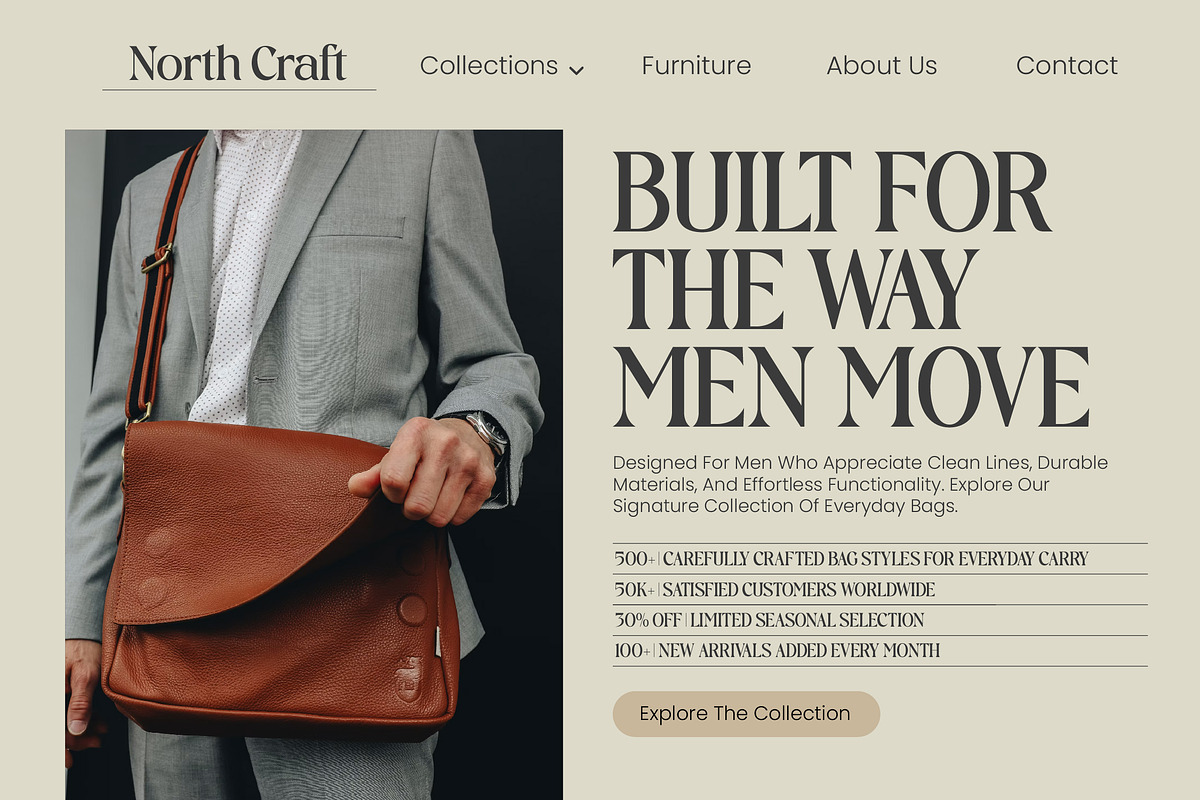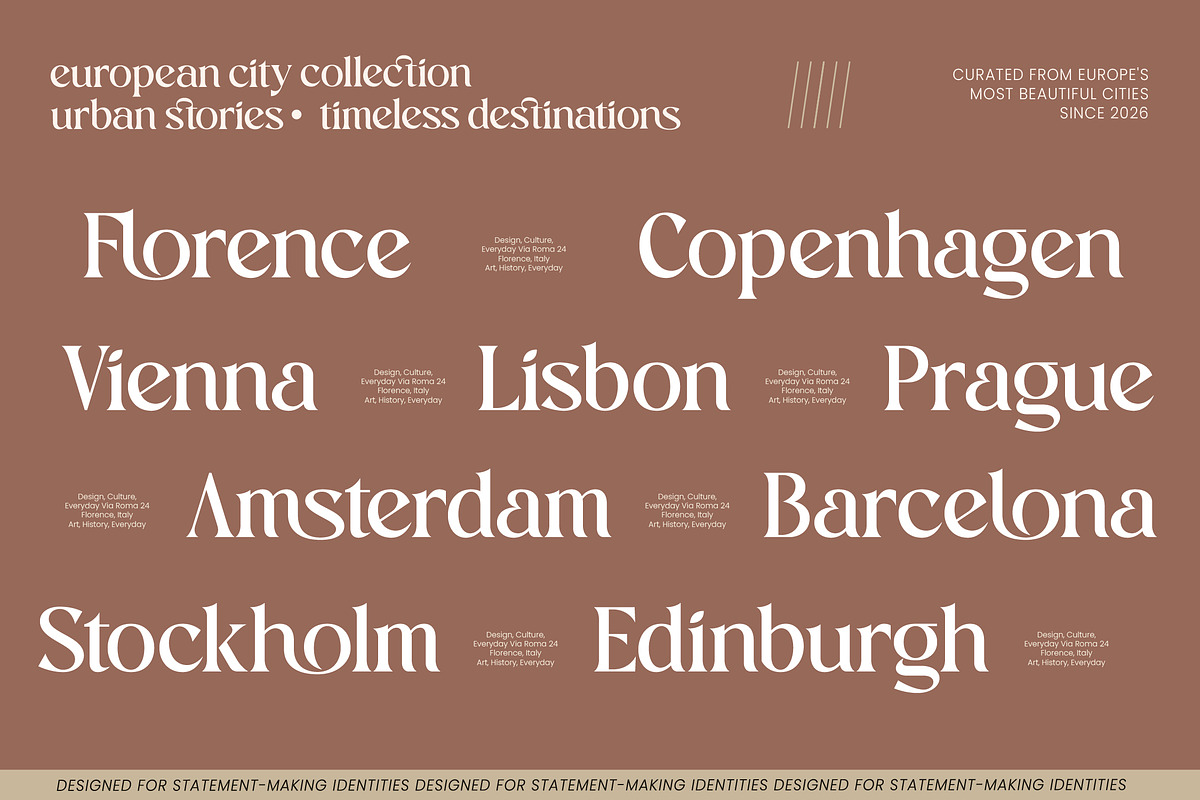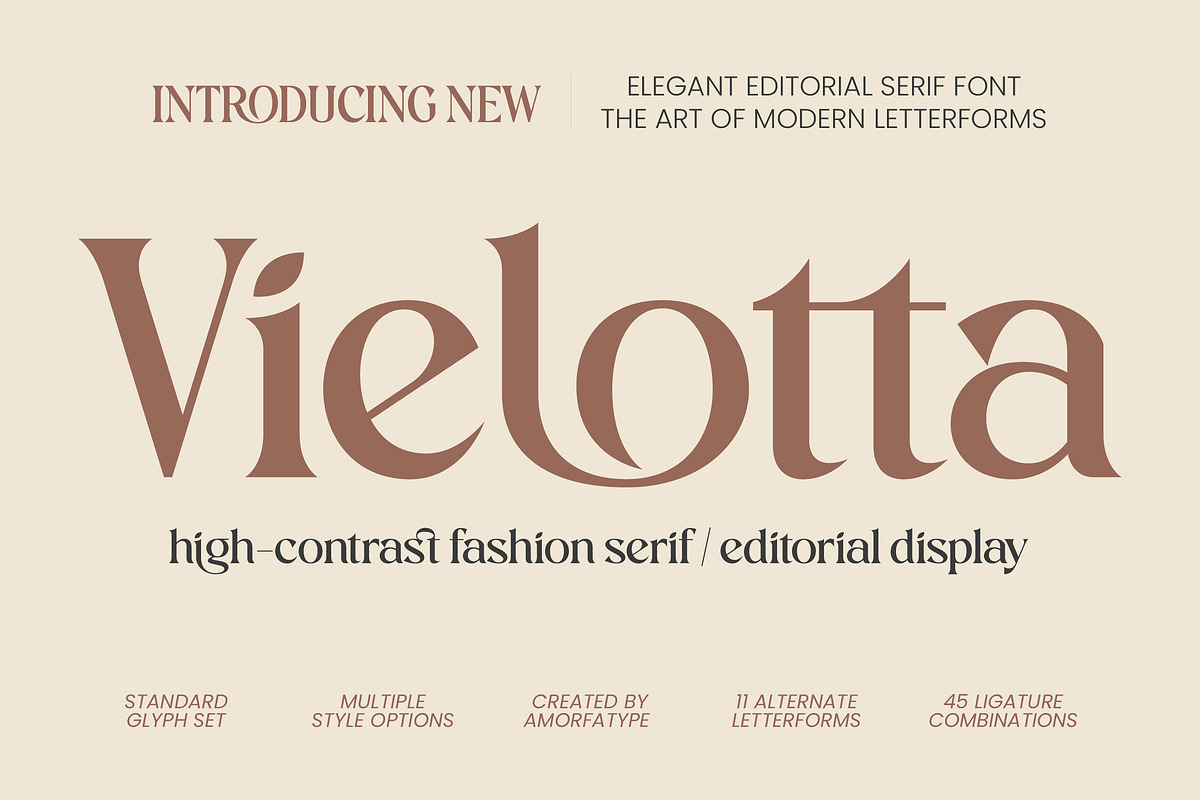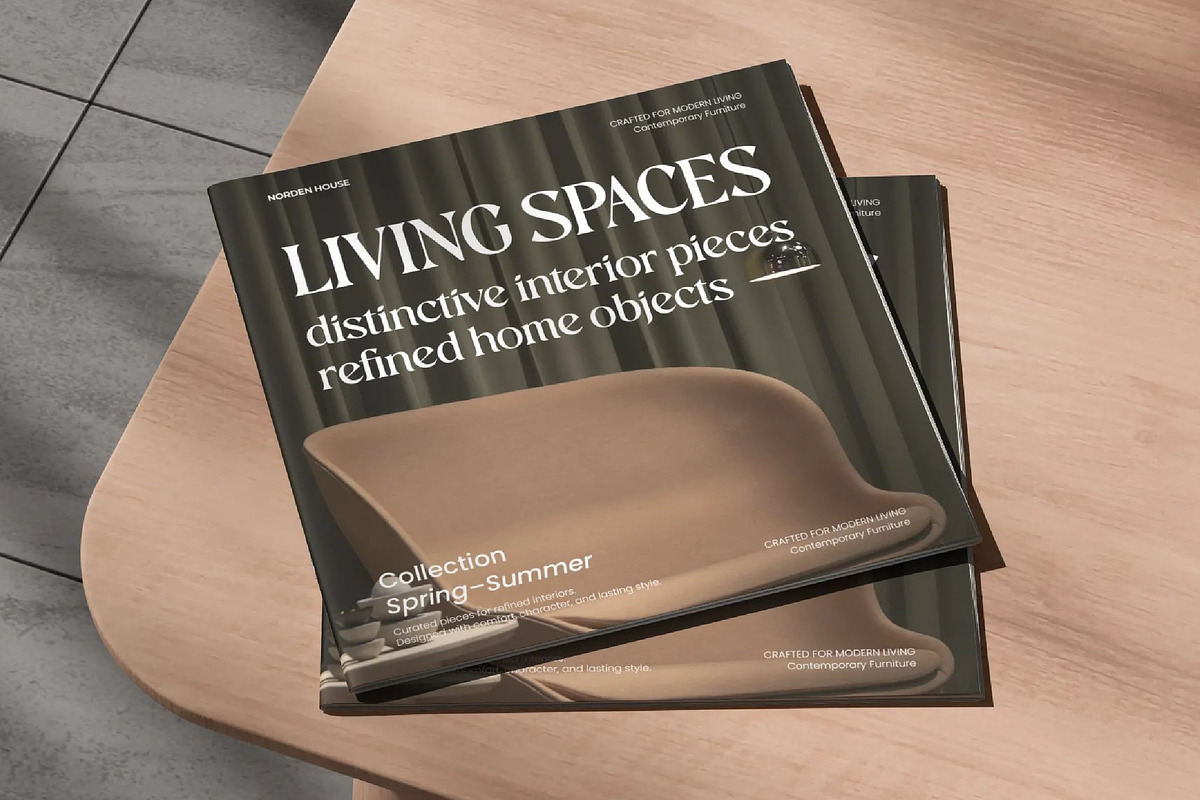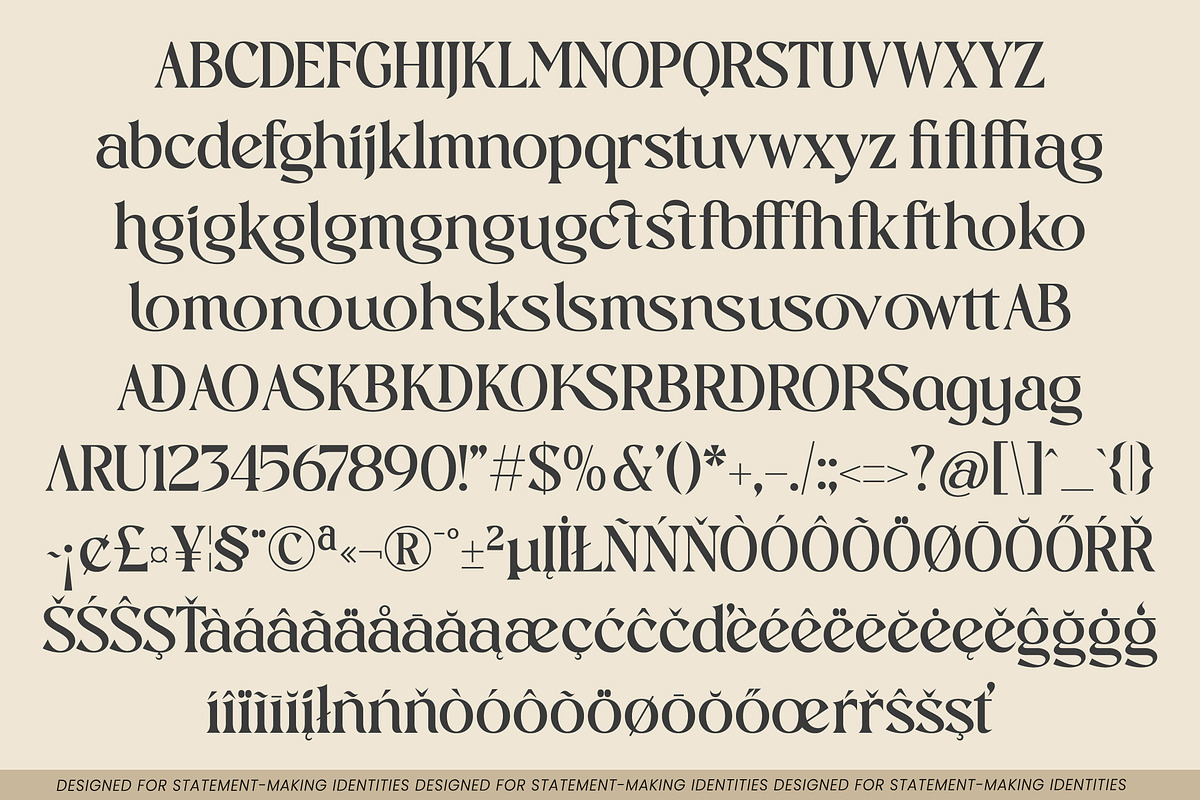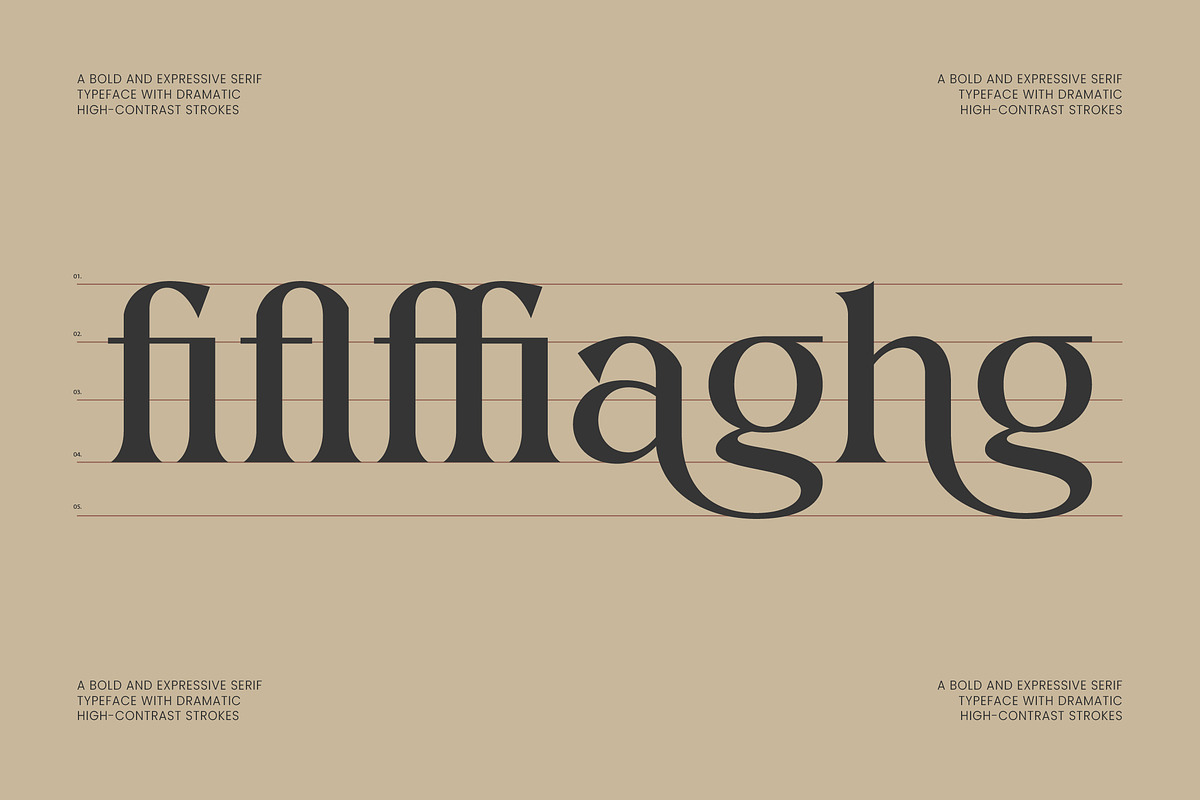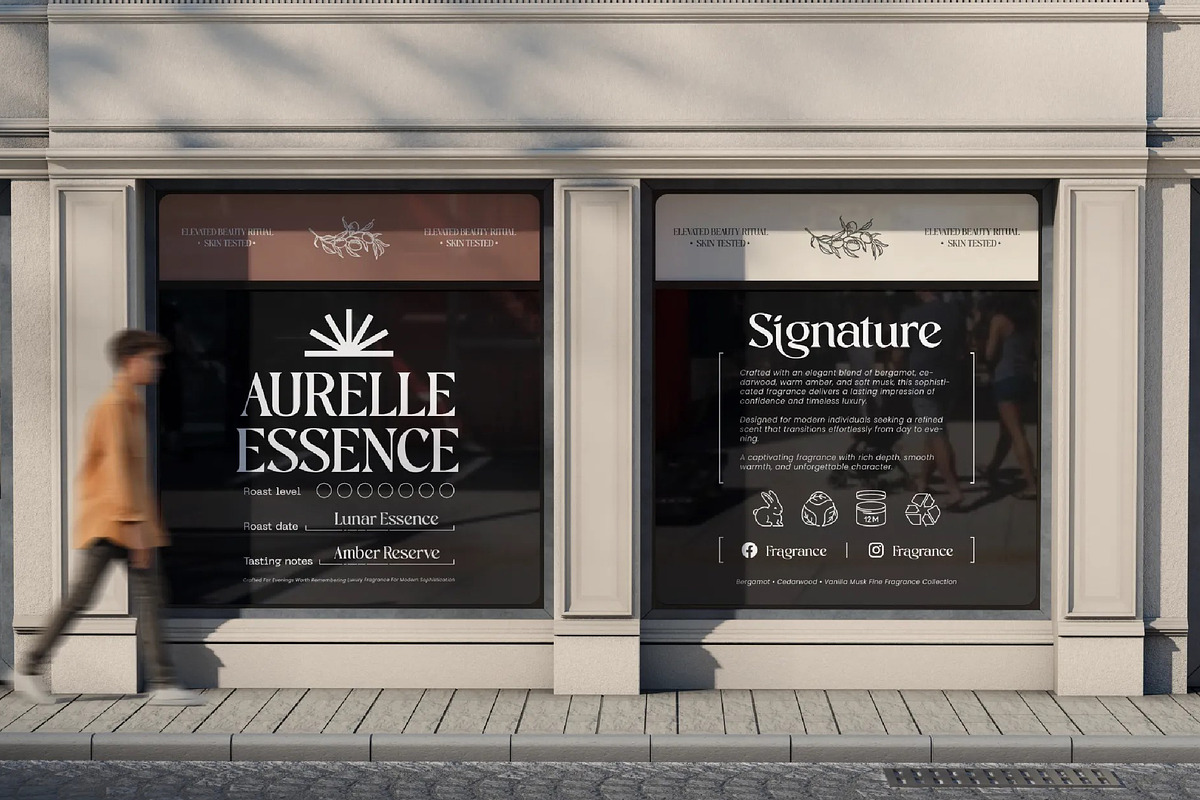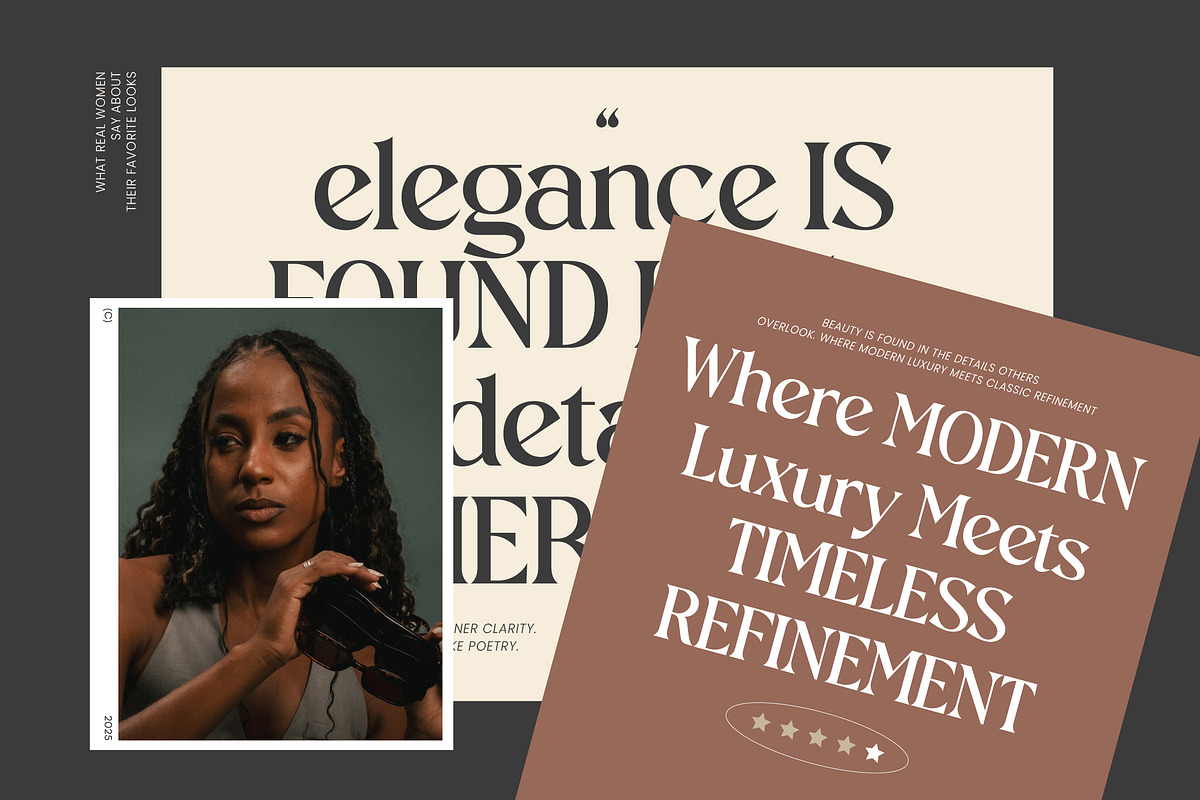
Vielotta Elegant Editorial Serif
Vielotta is a high-contrast fashion serif and editorial display typeface designed to celebrate timeless elegance, refined sophistication, and contemporary luxury. Inspired by iconic fashion editorials, premium branding systems, luxury publications, and modern lifestyle aesthetics, Vielotta delivers a striking visual presence through graceful proportions, elegant contrast, and meticulously crafted details.
Created for designers who seek distinctive typography with editorial character, Vielotta combines classic serif craftsmanship with modern display styling. The result is a typeface that feels fashionable, luxurious, and effortlessly sophisticated across a wide range of creative applications.
Featuring beautifully designed alternate letterforms and expressive ligature combinations, Vielotta allows designers to craft unique and memorable typographic compositions for branding, publishing, packaging, and premium visual identities.
🔡 OpenType Features: 11 Alternates & 45 Ligatures
✏️ High-Contrast Editorial Display Serif
🌍 Multilingual Support
Vielotta is created for designers who want a sophisticated fashion serif that feels luxurious, elegant, and editorial-driven—perfect for fashion branding, beauty packaging, magazine layouts, luxury logos, boutique identities, publishing projects, and premium visual storytelling.